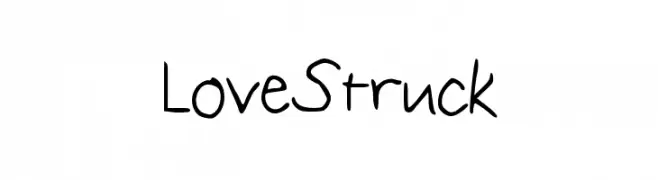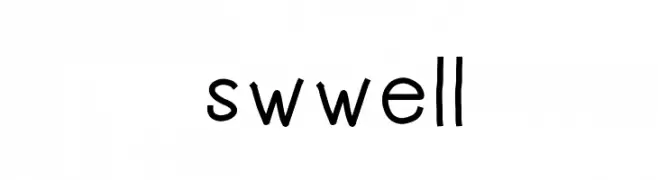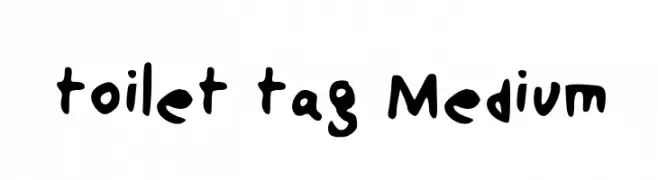
A casual, handwritten font with a dynamic and organic style.
A playful, handwritten font with a whimsical and casual style.
A playful, handwritten font with quirky, irregular strokes.
A playful, handwritten-style font with tall, narrow characters.
A playful, casual handwritten font with smooth, rounded edges.
A playful, handwritten font with smooth, flowing lines and a whimsical touch.